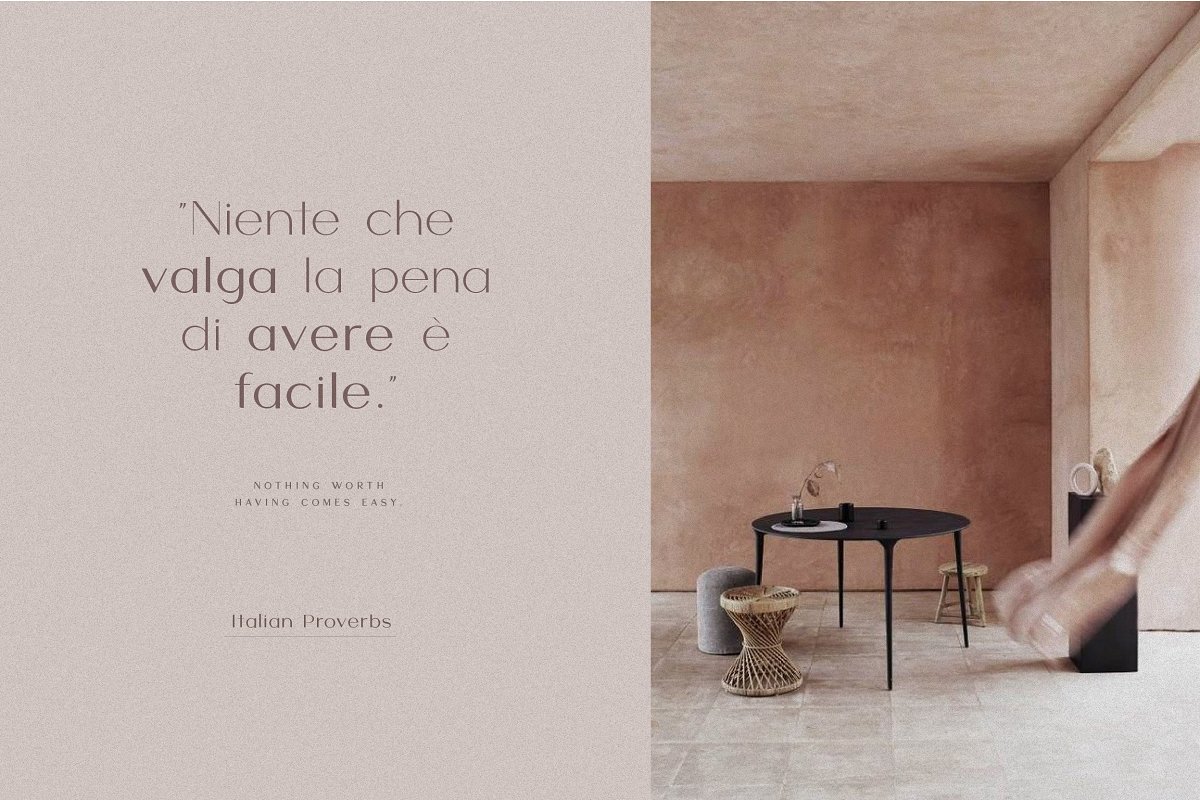
About the Harietta Semi geometric Clean Sans Font
🎉Check out our latest sans-serif font: Botanique – Hand-drawn Humanist Sans https://crmrkt, com/0dy48AHarietta – a semi-geometric, clean sans serif with a retro, humanist and elegant touch, , Specially designed for simple, clean, humanist projects, The font is perfectly suitable for creating elegant, clean, retro design such as logo, packaging, social media, and more